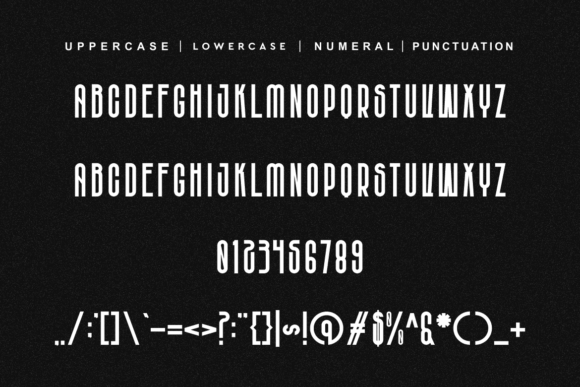
Sturoc Font: The Ultimate Sans Serif Font for Creative Ideas
When it comes to typography, the right font can make all the difference in bringing your creative ideas to life. In the world of sans serif fonts, one font stands out from the rest: Sturoc. This incredibly unique font is masterfully designed to become a true favorite among designers, and its versatility makes it the perfect choice for a wide range of projects. In this article, we’ll dive into the world of Sturoc font, exploring its features, benefits, and uses.
What Makes Sturoc Font So Special?
Sturoc font is an sans serif font that boasts a distinctive and modern aesthetic. Its clean lines, precise curves, and carefully crafted letterforms make it a standout in the world of typography. Here are just a few of the features that make Sturoc font so special:
- Unique Design: Sturoc font has a one-of-a-kind design that sets it apart from other sans serif fonts. Its letterforms are carefully crafted to create a sense of balance and harmony.
- High Legibility: Sturoc font is designed to be highly legible, making it perfect for use in a wide range of applications, from body text to headings.
- Versatility: Sturoc font is incredibly versatile, and can be used in everything from digital projects to print materials.
The Benefits of Using Sturoc Font
So why choose Sturoc font for your next project? Here are just a few of the benefits of using this amazing font:
- Adds a Touch of Sophistication: Sturoc font adds a touch of sophistication and elegance to any project, making it perfect for high-end brands and luxury products.
- Improves Readability: Sturoc font’s high legibility makes it easy to read, even at small sizes, making it perfect for body text and other long-form content.
- Enhances Creativity: Sturoc font’s unique design and versatility make it the perfect choice for creative projects, such as posters, flyers, and other visual materials.
The Many Uses of Sturoc Font
So what can you use Sturoc font for? The possibilities are endless! Here are just a few ideas to get you started:
- Branding and Identity: Use Sturoc font to create a unique and memorable brand identity that sets you apart from the competition.
- Digital Projects: Sturoc font is perfect for digital projects, such as websites, social media graphics, and email marketing campaigns.
- Print Materials: Sturoc font is also great for print materials, such as brochures, flyers, and posters.
Pairing Sturoc Font with Other Fonts
One of the best things about Sturoc font is its versatility. It can be paired with a wide range of other fonts to create a unique and visually appealing typography scheme. Here are a few suggestions for pairing Sturoc font with other fonts:
- Serif Fonts: Pair Sturoc font with a serif font, such as Times New Roman or Garamond, to create a classic and sophisticated typography scheme.
- Script Fonts: Pair Sturoc font with a script font, such as Pacifico or Great Vibes, to add a touch of elegance and whimsy to your typography.
- Display Fonts: Pair Sturoc font with a bold display font, such as Arial Black or Impact, to create a bold and eye-catching typography scheme.